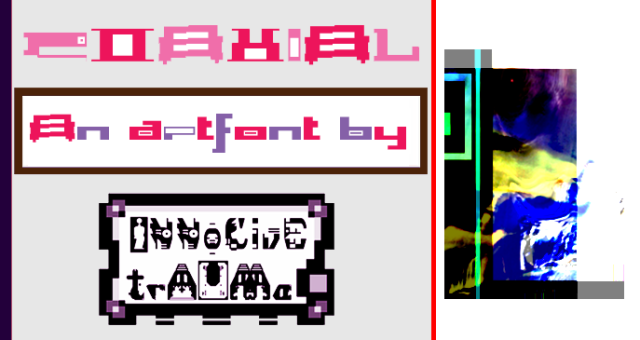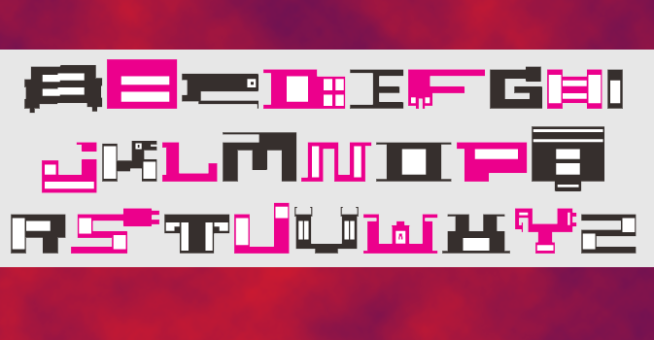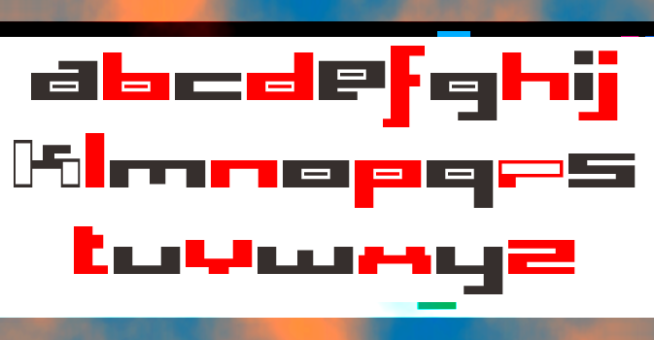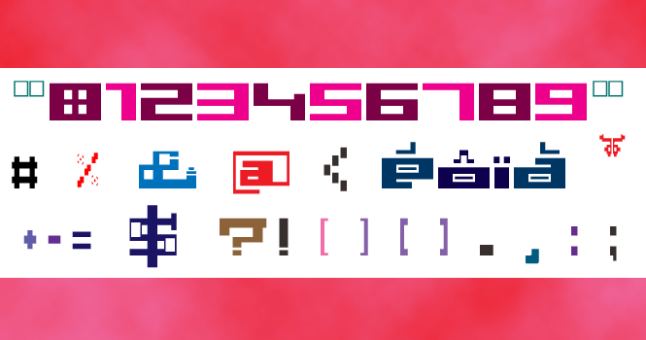
trAUMa 96 / Coaxial
"Coaxial", like all the "trAUMa" series, works at the frontier between Art & Type Design, Figuration & Abstraction, each font is a comprehensive world in which every glyph is a "living" entity. But put together they can produce your messages in the most accurate way.